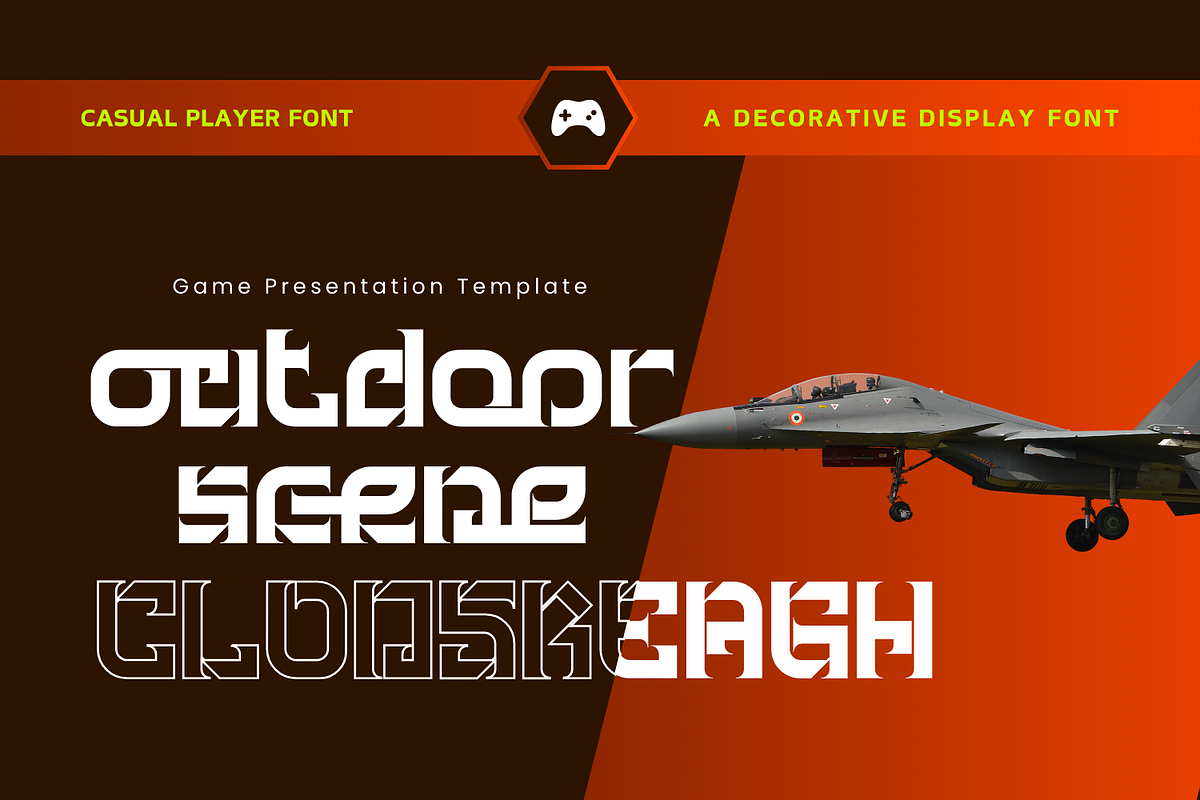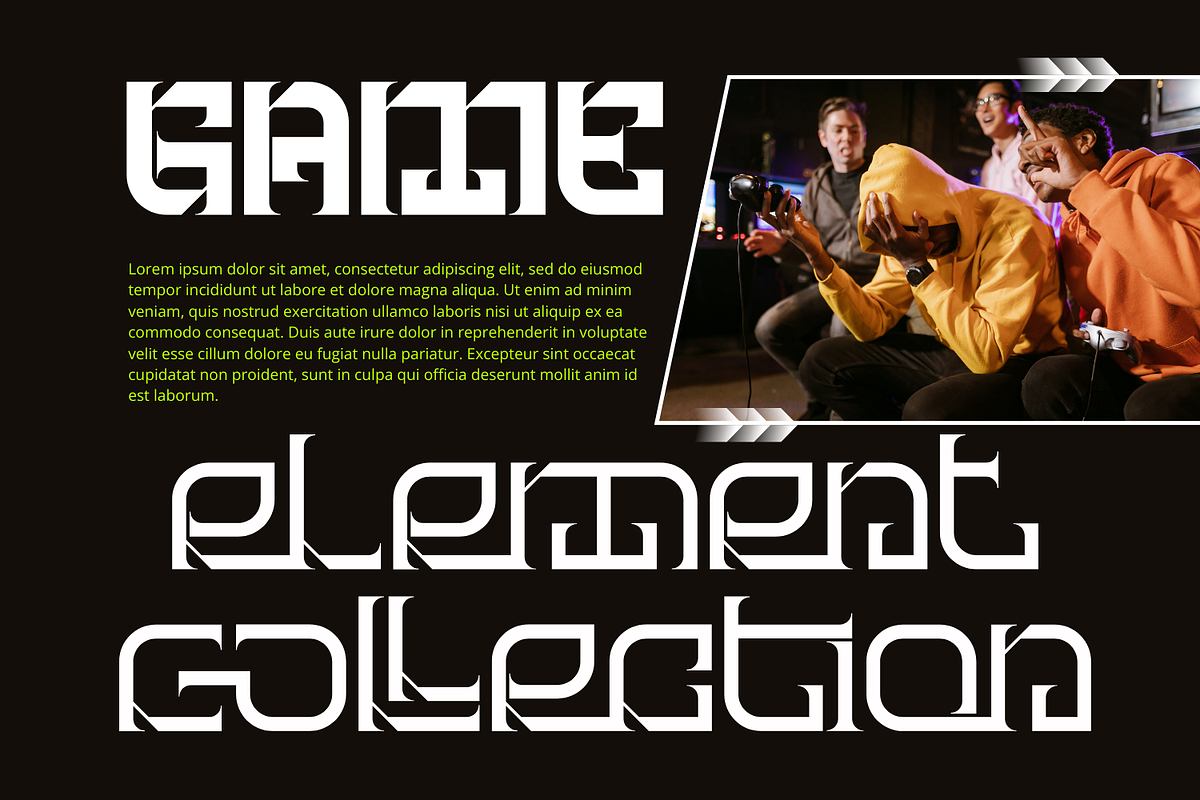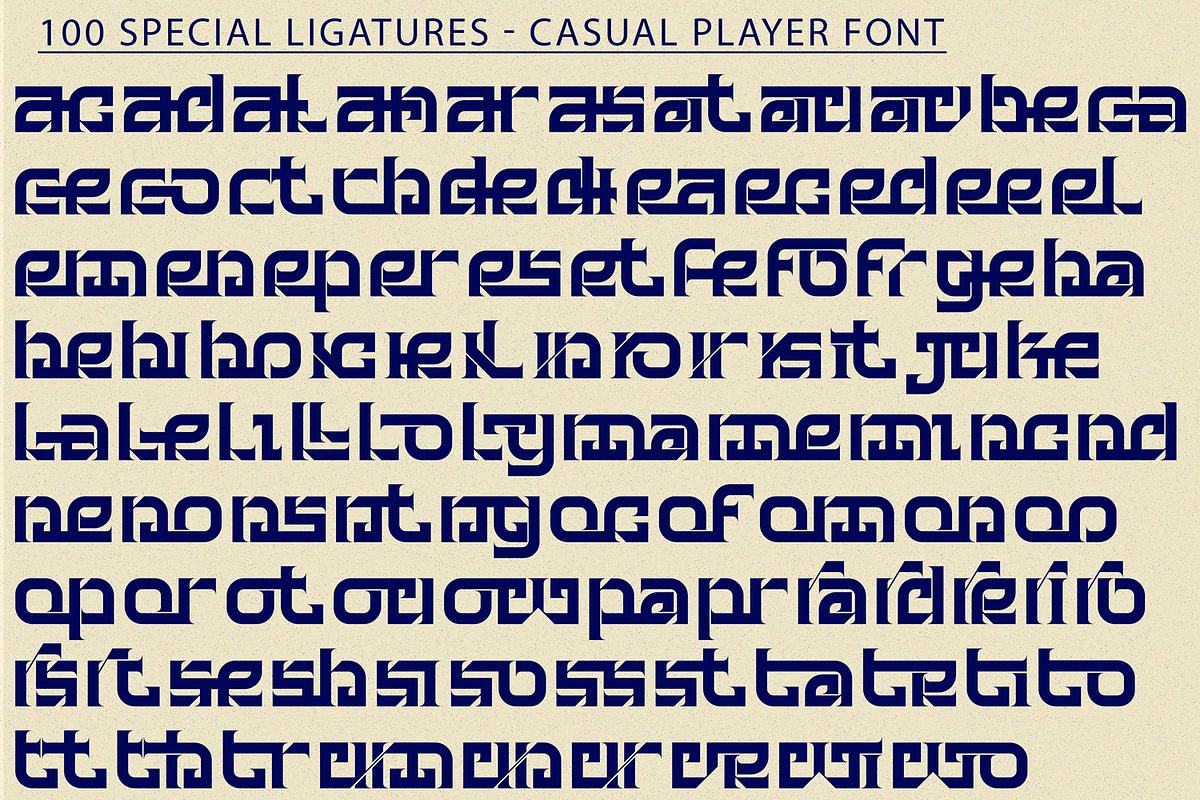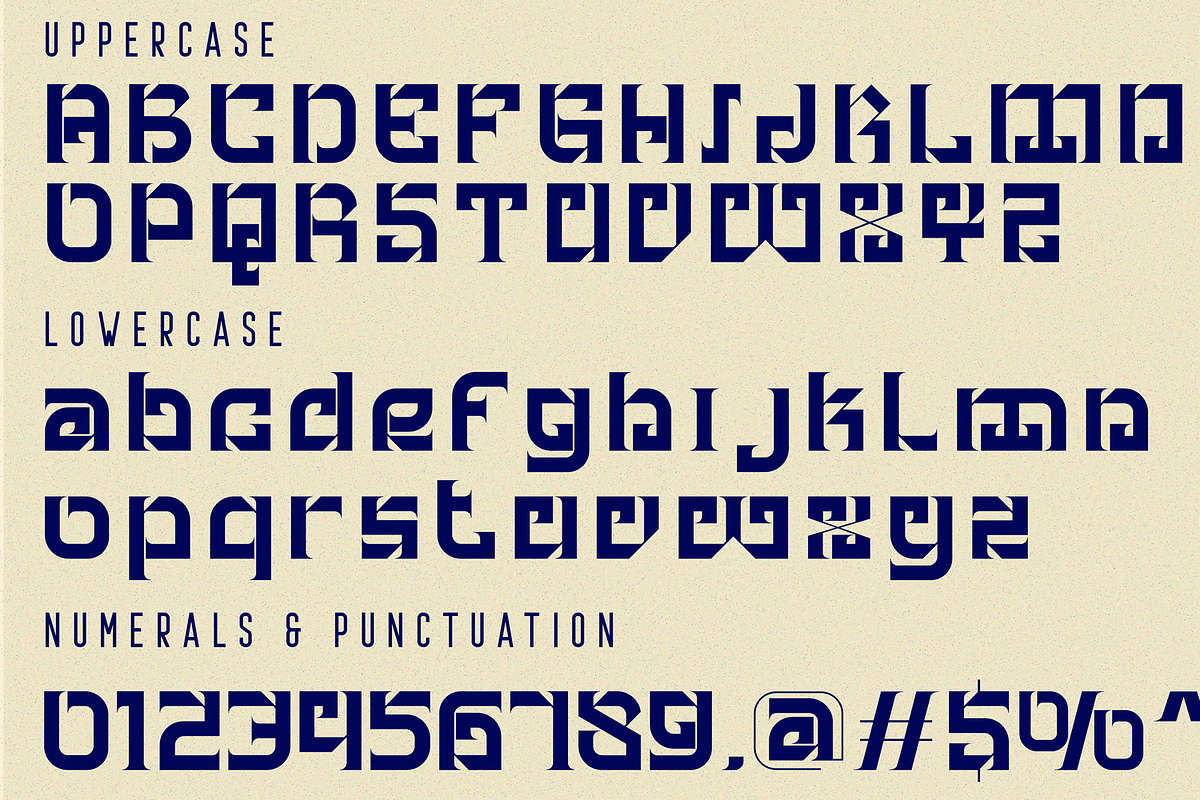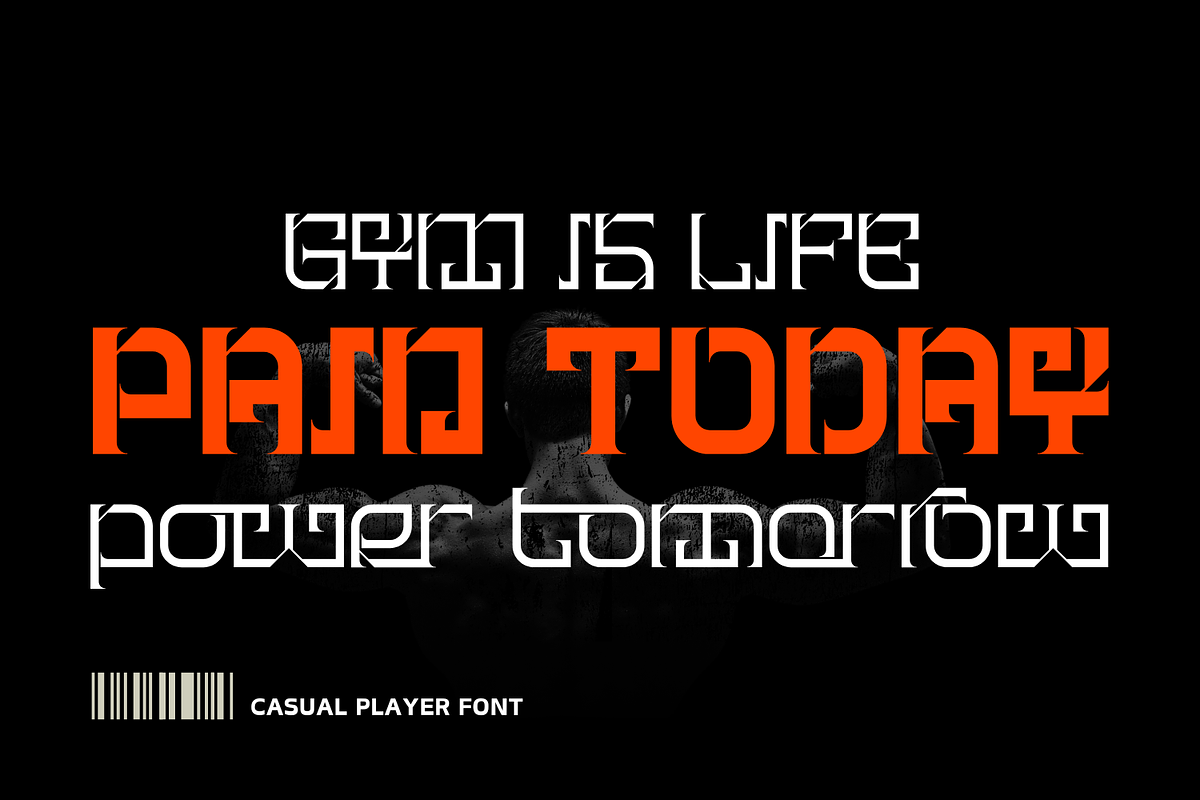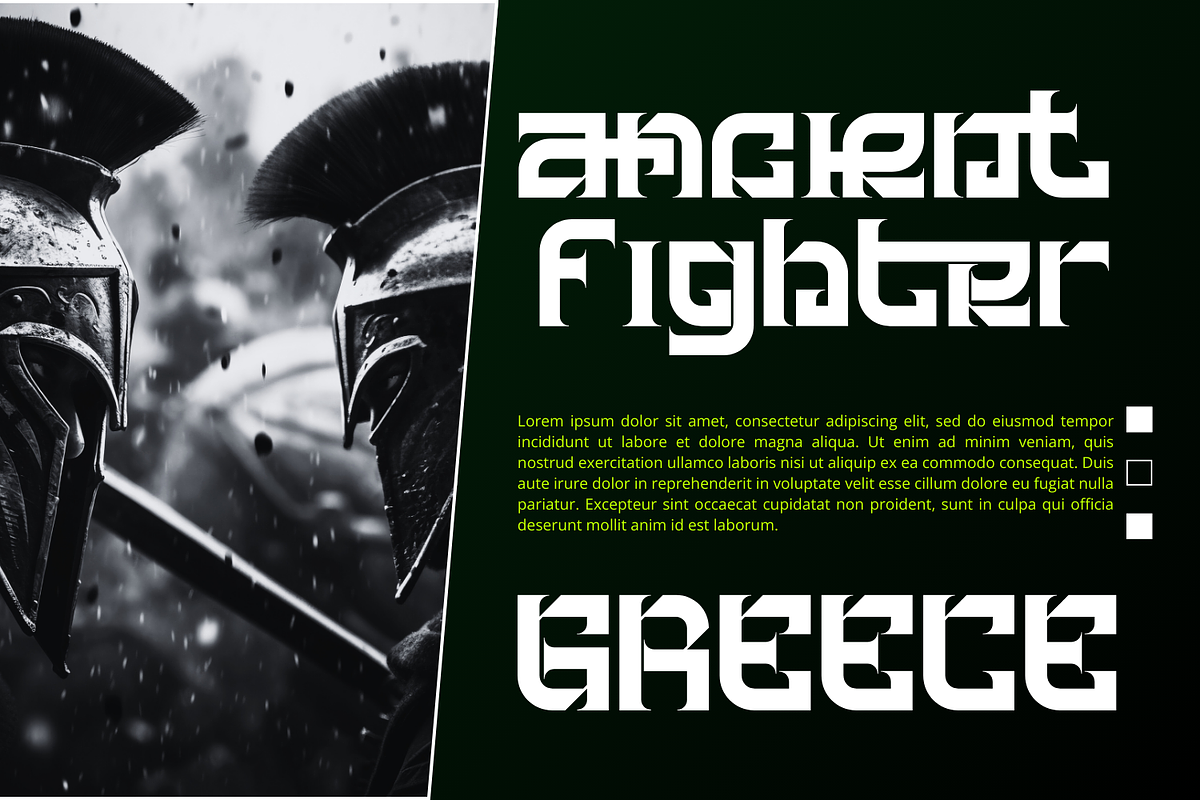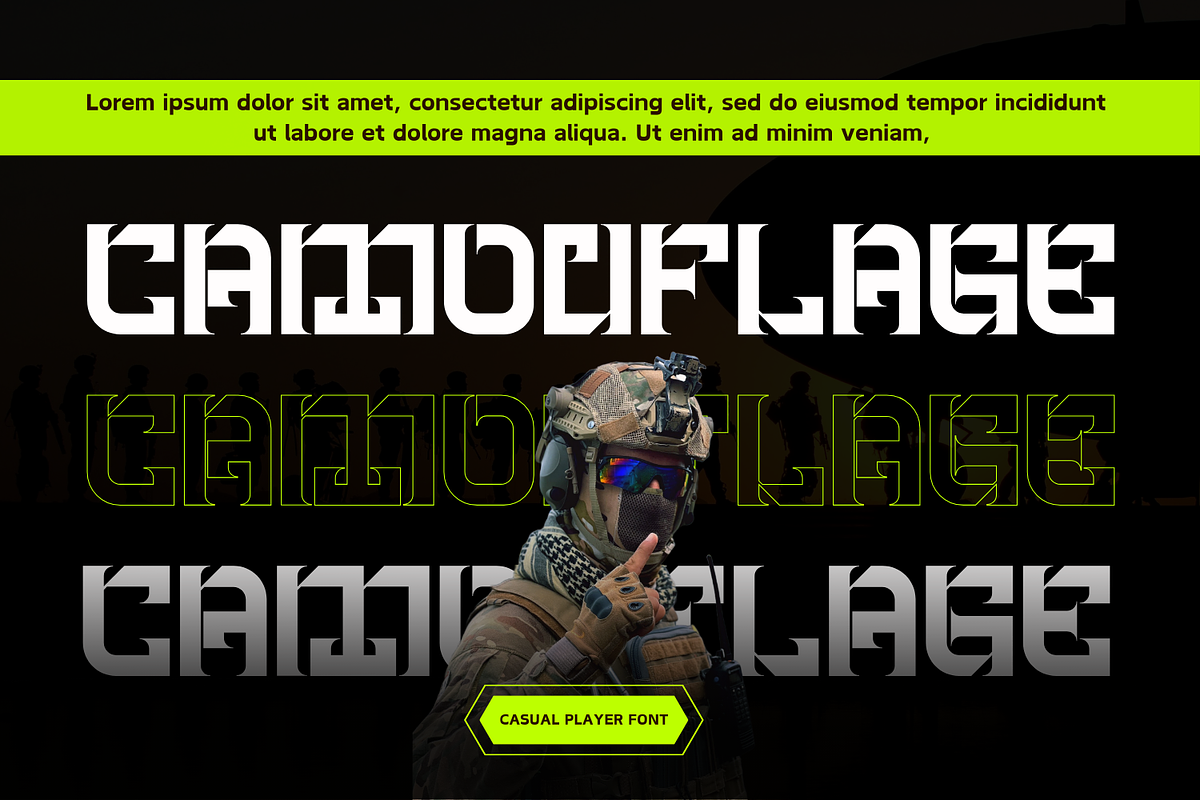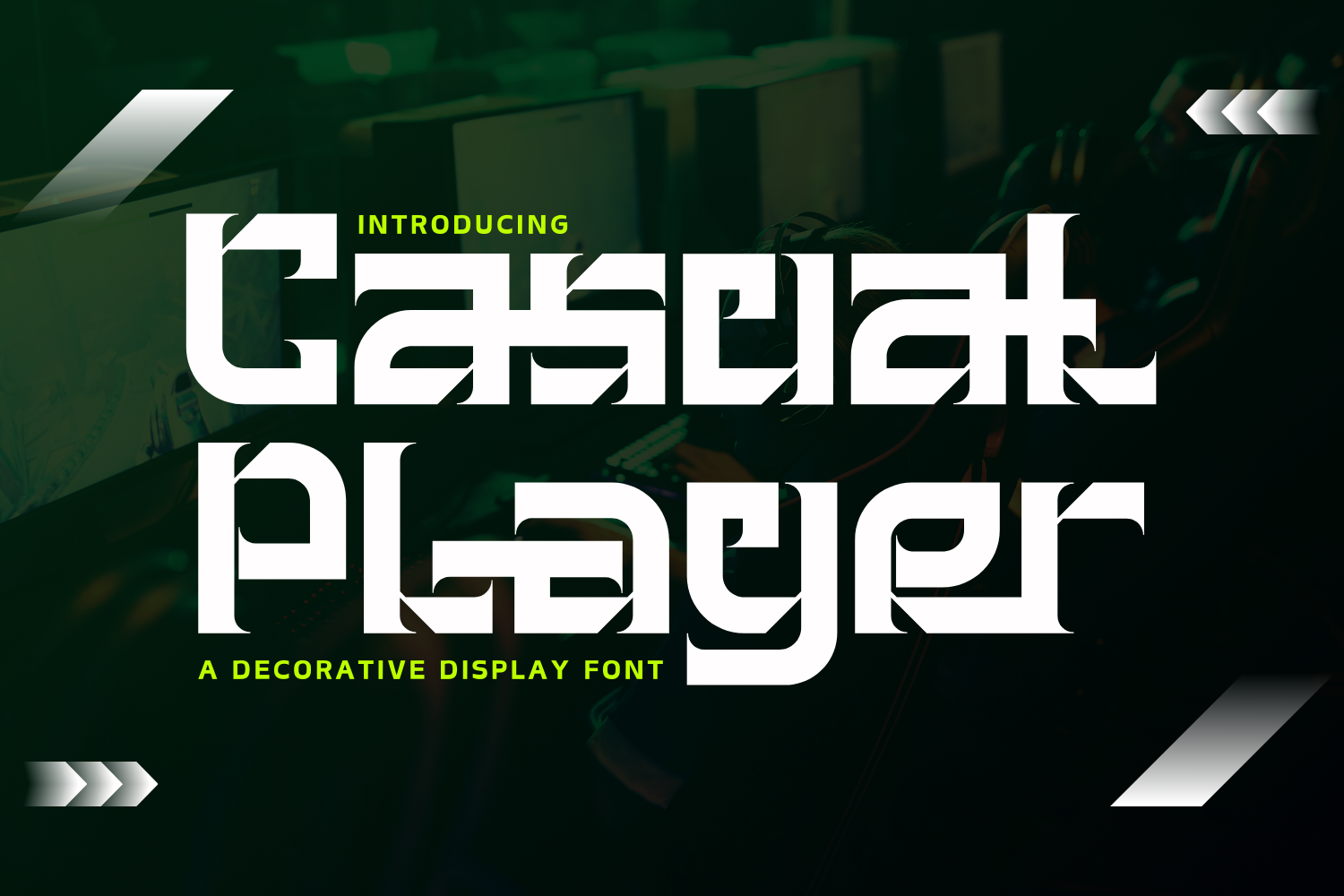
Casual Player - Space Font
Casual Player Font - Inspired by the sleek designs of technology and the digital age, this font captures the essence of innovation and progress. A futuristic font that will mark your business as the most unique on the market. Designed with every detail in mind, this typeface has a very futuristic look. With its sharp lines, geometric forms, and high-tech vibe, this font is perfect for projects that require a modern and forward-looking visual identity. Its clean and precise letterforms, along with its distinct futuristic style, make it an excellent choice for technology-based branding, gaming graphics, sci-fi posters, and digital interfaces.
Casual Player was built with OpenType features and includes 100 ligatures, alternate, numbers, punctuation, and it also supports other languages.
ac ad al an ar as at au av be ca ce ch co ct de di ea ec ed ee el em en ep er es et fe fo fr ge ha he hi ho ie ic il in io ir is it ju ke la le li ll lo ly ma me mi nc nd ne ng no nt ns oc of om on oo op or ot ou ow pa pr ra rd re ri ro rs rt se sh si so ss st ta te th ti to tr tt um un ur ve wi wo
- Special Ligatures